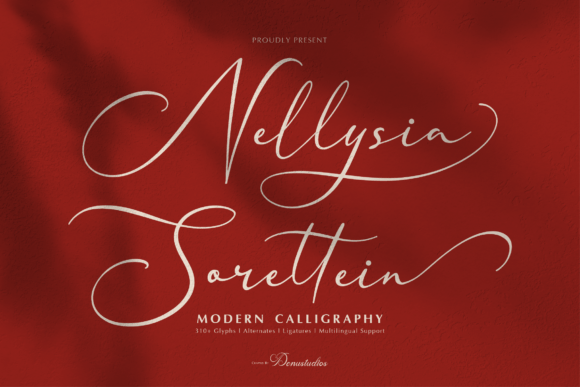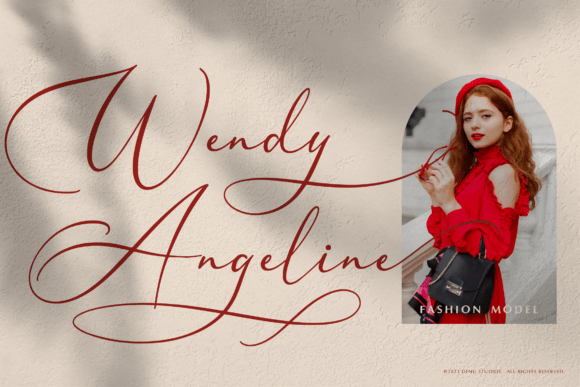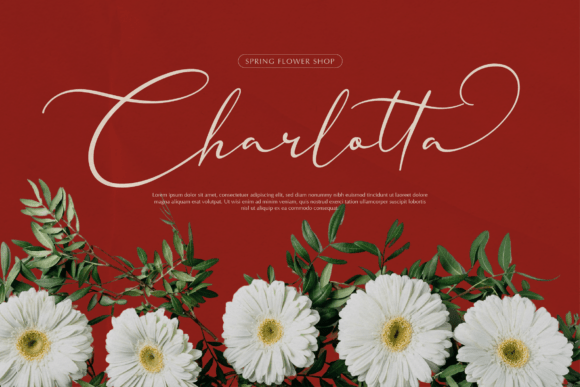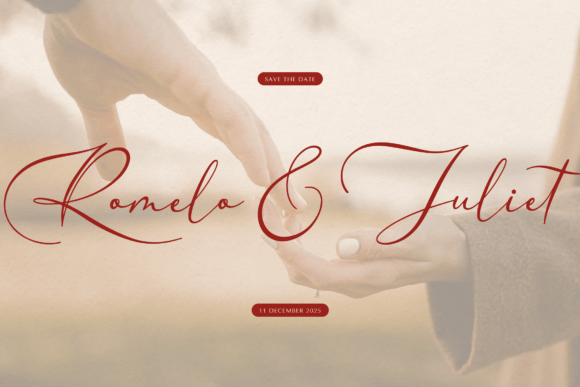
Nellysia Sorettein Font
About the Nellysia Sorettein Font
Discover the charm of Nellysia Sorettein Font. This font is a perfect blend of modern aesthetics and classic appeal. Nellysia Sorettein is a luxurious modern calligraphy font with sweeping strokes and a romantic spirit. Its graceful curves, delicate ligatures, and over 310 glyphs make it a perfect choice for high-end wedding stationery, personal branding, and elegant packaging. With multilingual support and alternate characters, this script font delivers both style and flexibility for heartfelt and sophisticated designs.
Nellysia Sorettein excels in applications requiring a touch of refined elegance, such as wedding invitations, logos for luxury brands, or high-end product packaging. Its graceful forms also lend themselves well to short quotes or headers in promotional materials. However, its delicate nature makes it unsuitable for body text or UI elements where legibility at smaller sizes is crucial. Avoid using it for large blocks of text.
Pairing Nellysia Sorettein with a clean sans-serif like Montserrat for body copy provides a strong contrast, balancing its ornate style with modern readability. For a more traditional feel, consider pairing it with a classic serif font like Garamond. If a bolder contrast is desired, a geometric sans-serif like Futura can create a striking juxtaposition.
The overall personality of Nellysia Sorettein is sophisticated and romantic, conveying a sense of luxury and timeless appeal. It is best suited for brands projecting high-end quality, exclusivity, or a sense of refined artistry.
Nellysia Sorettein Font Usage Examples
Nellysia Sorettein Font Example